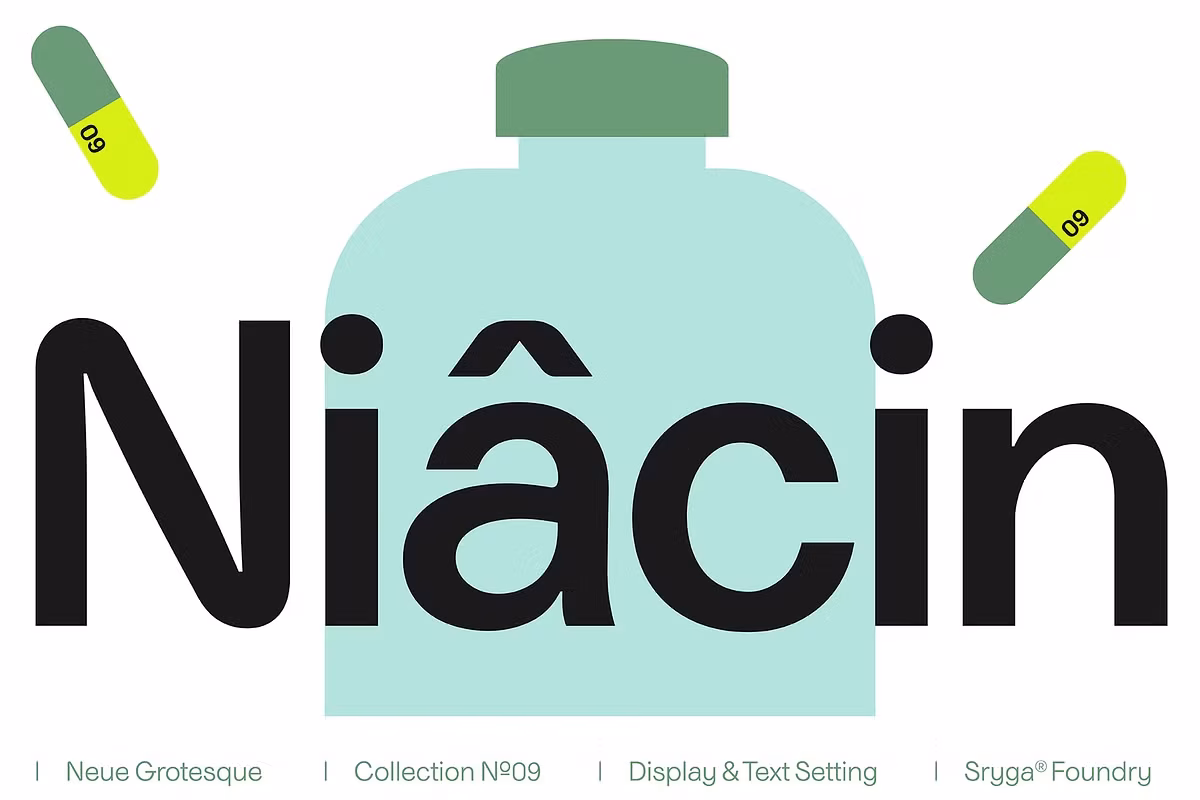
Niacin Quirky Fun Sans Variable Font Free Download
Please note, to use this font for commercial purposes, you must purchase the full version. Niacin is a quirky and fun sans-serif variable font designed to bring personality and style to your designs. With its playful letterforms and dynamic versatility, this font is perfect for logos, headlines, posters, and branding materials. Whether you're working on a creative campaign, an adventurous brand identity, or a lighthearted project, Niacin adds a unique and joyful flair to your work. Test it out and enjoy free download access for personal use. Experience the flexibility and charm of Niacin Quirky Fun Sans Variable Font Free Download before purchasing the commercial license. Bring a fun and expressive touch to your designs with Niacin.